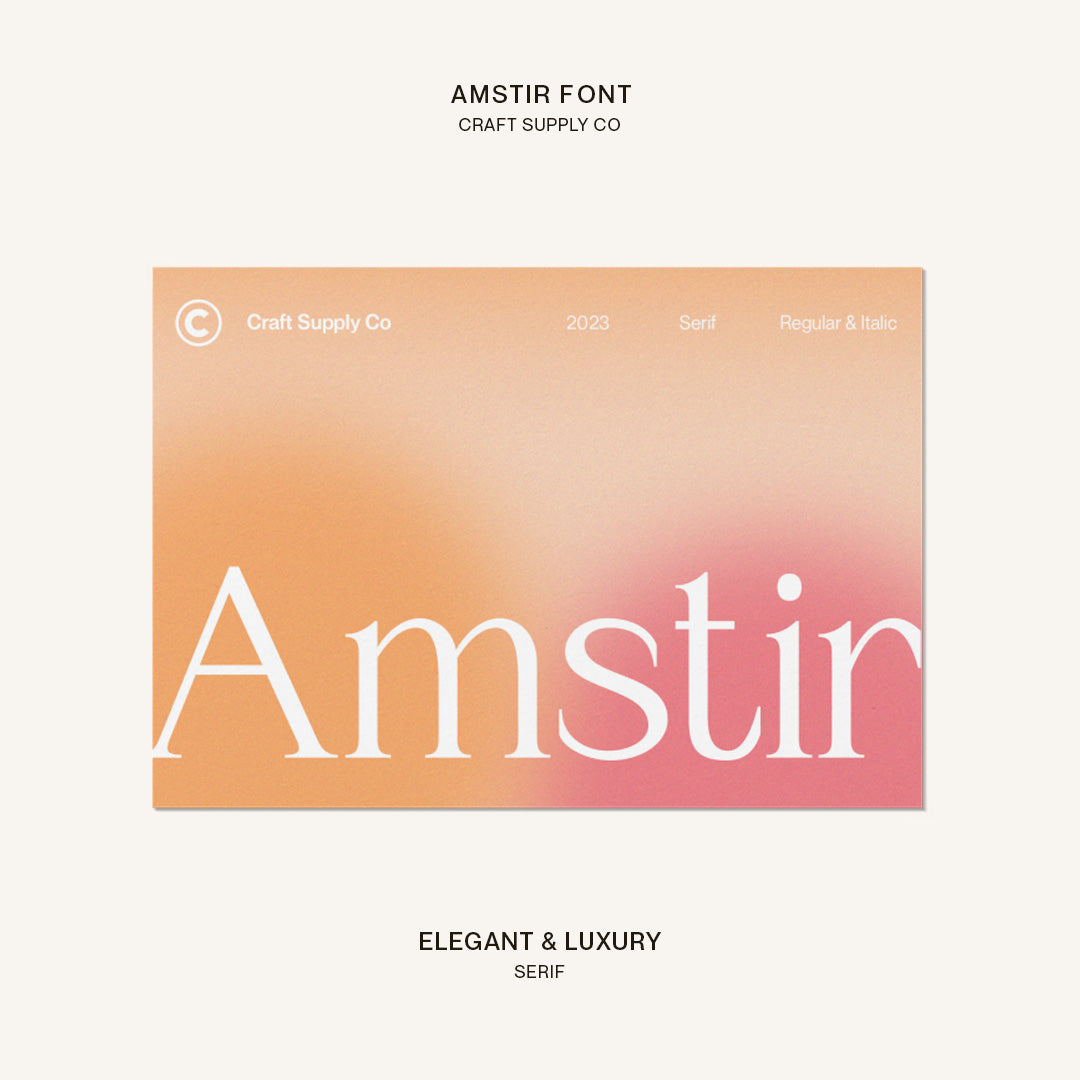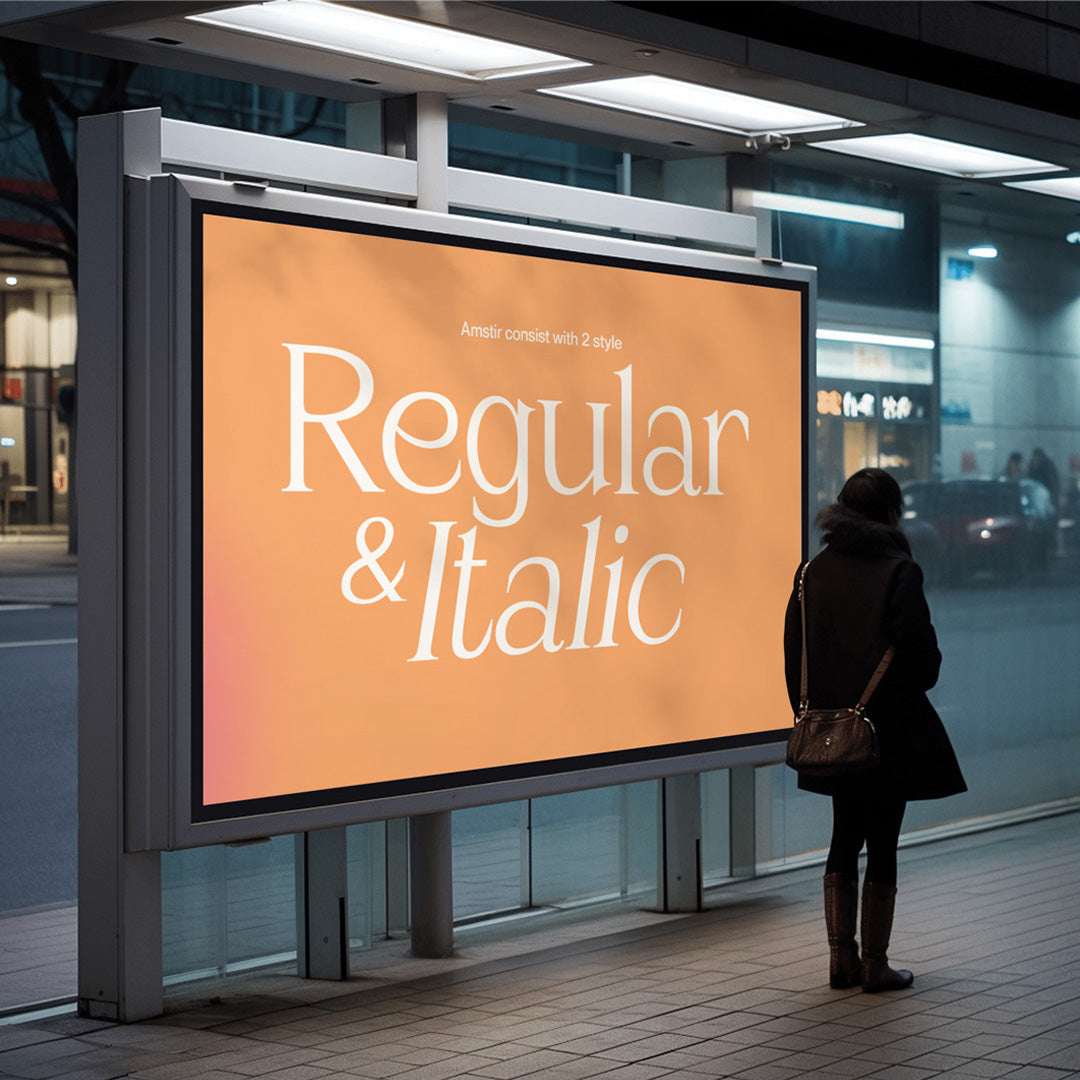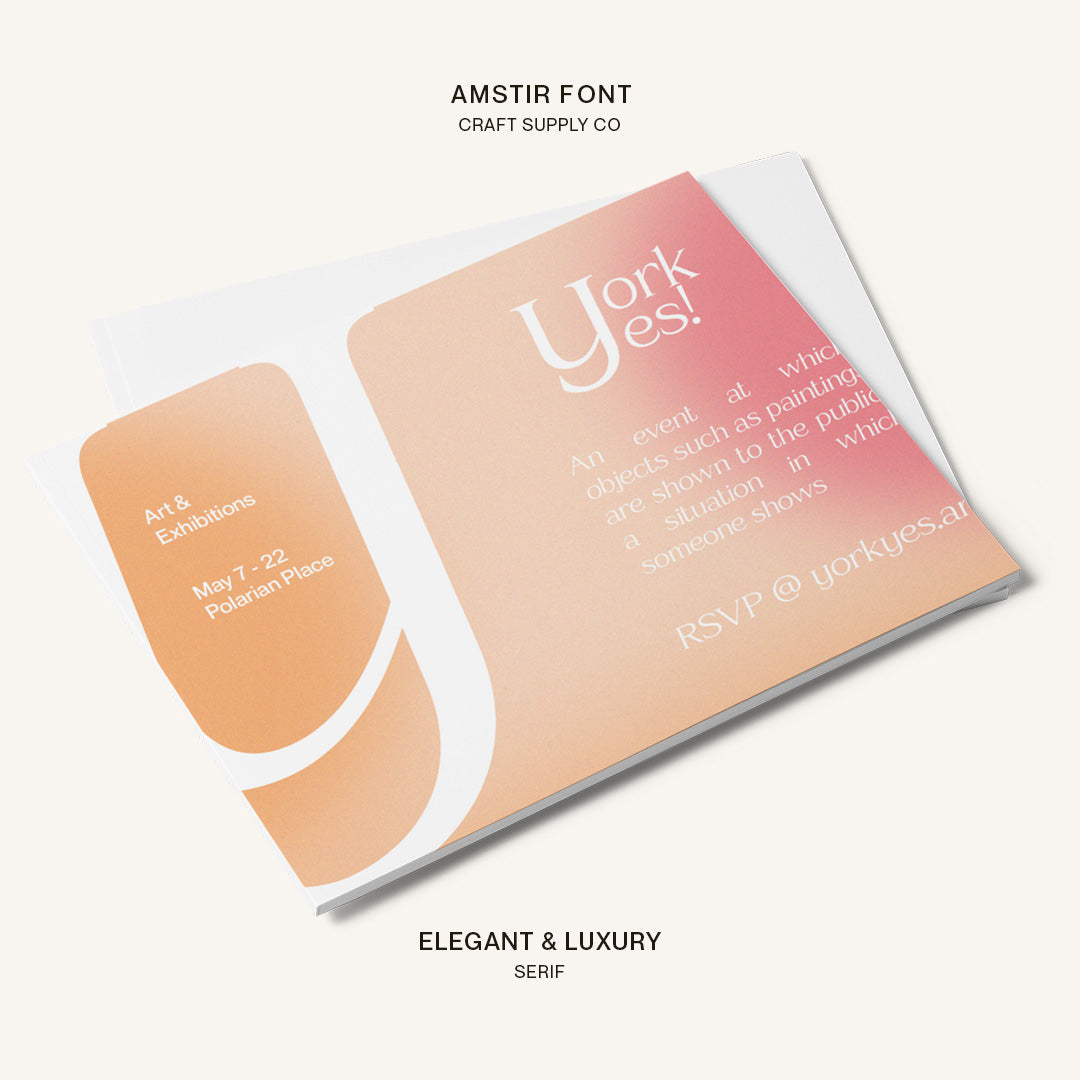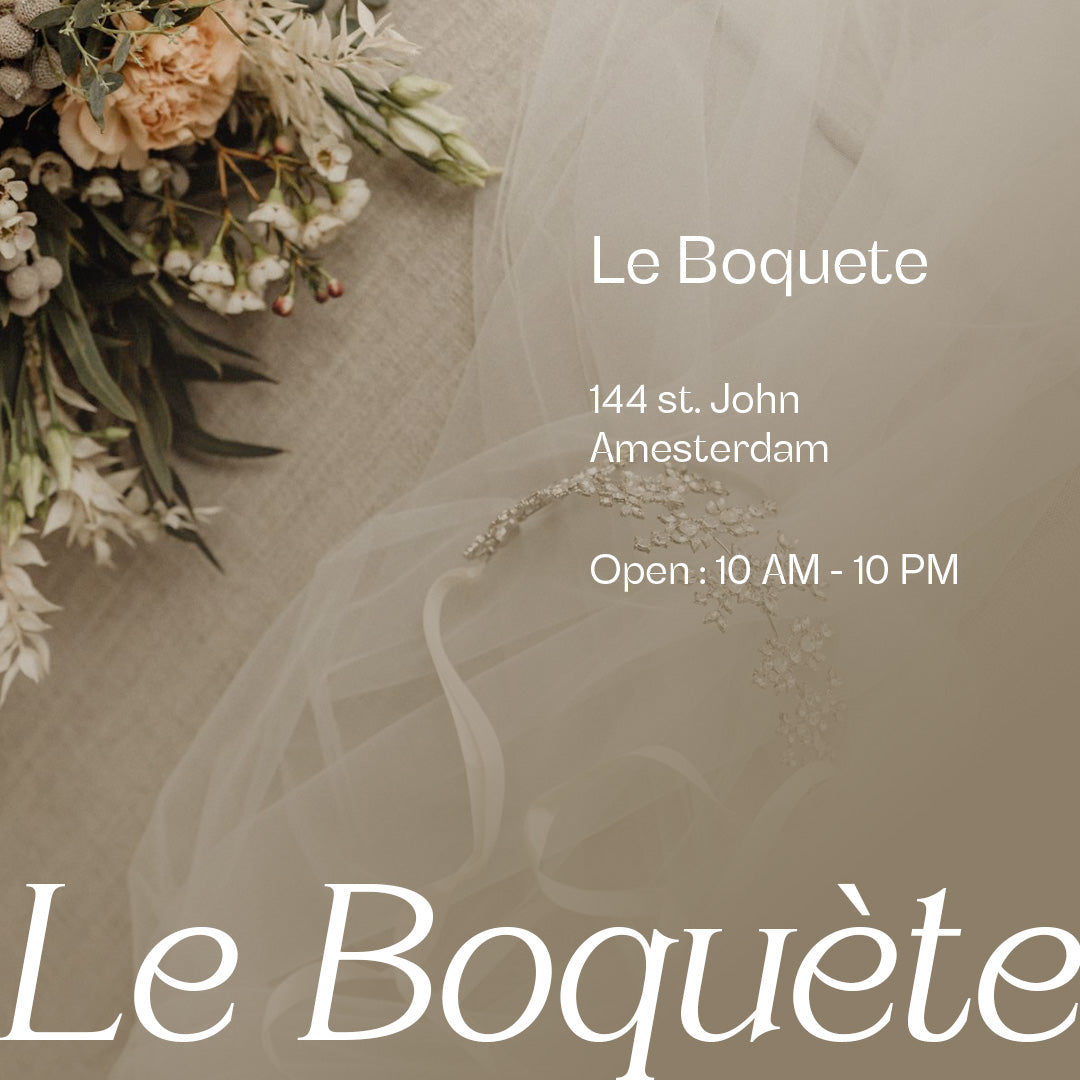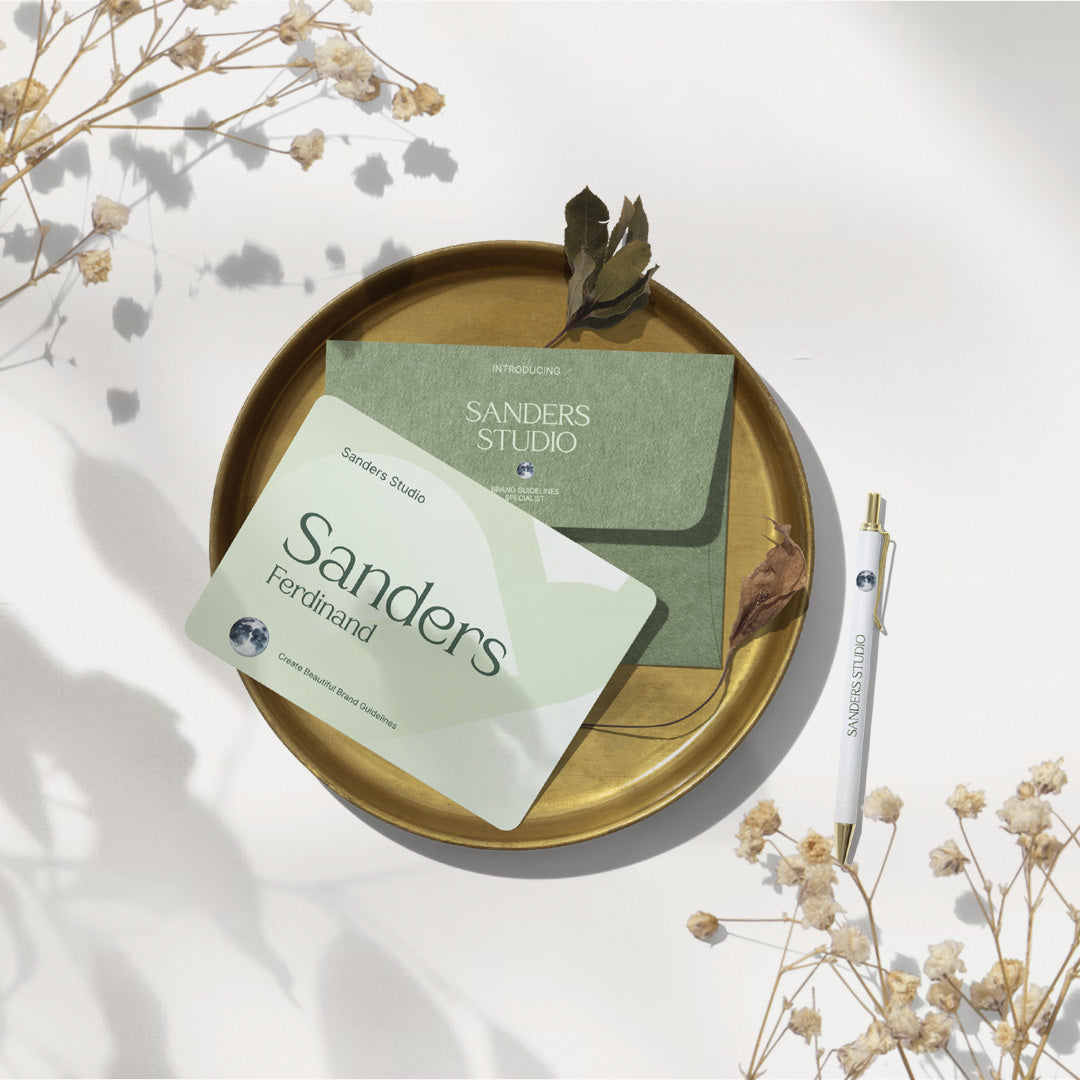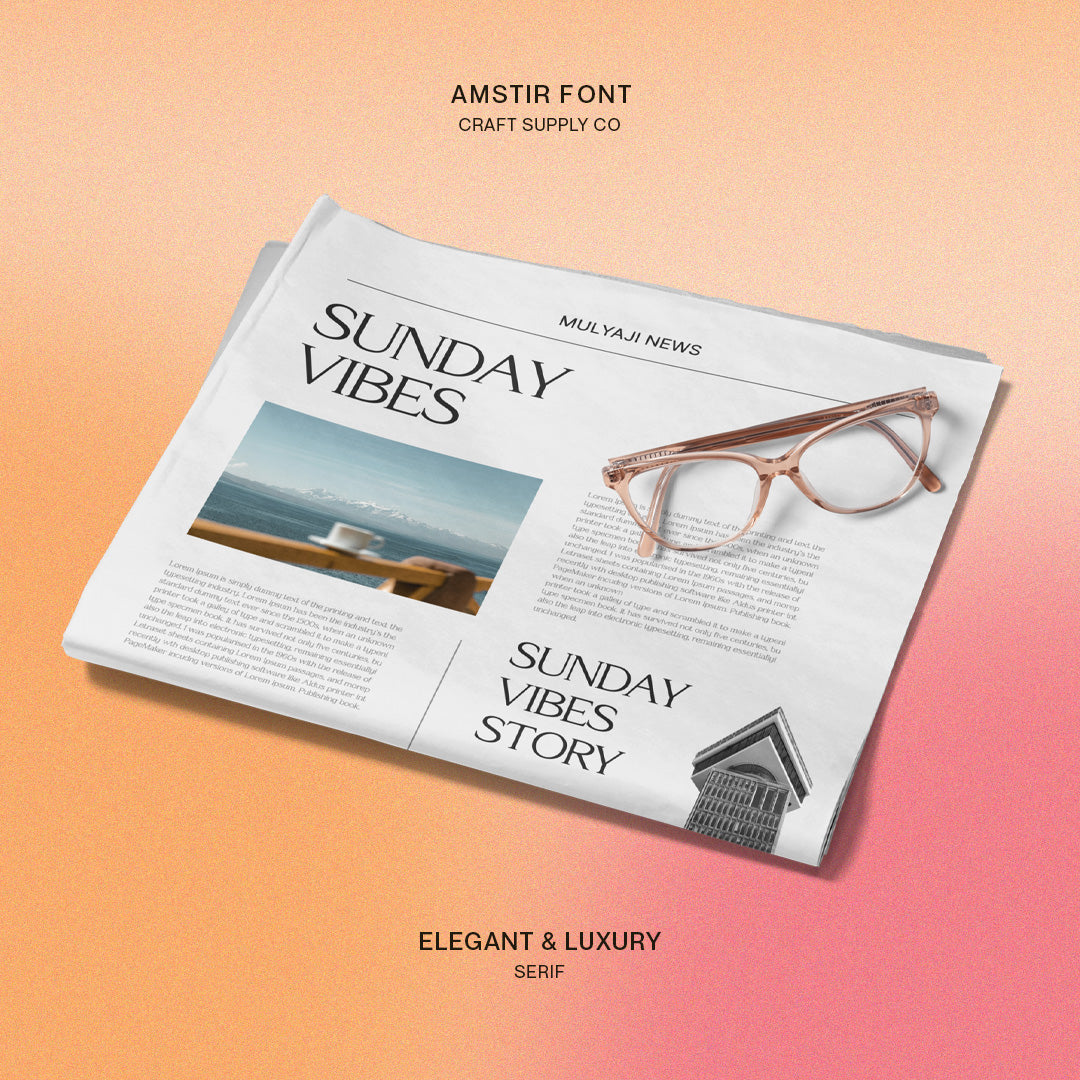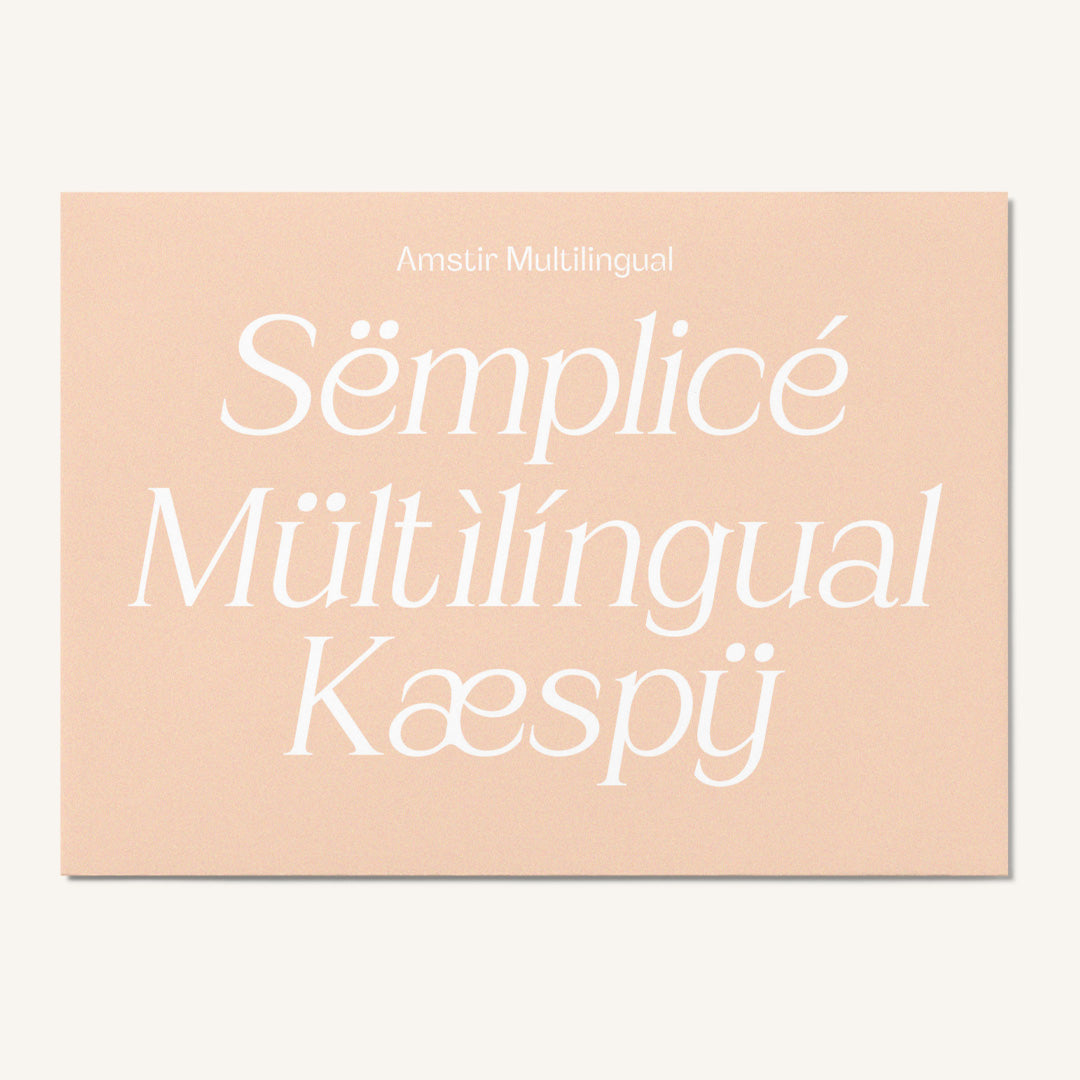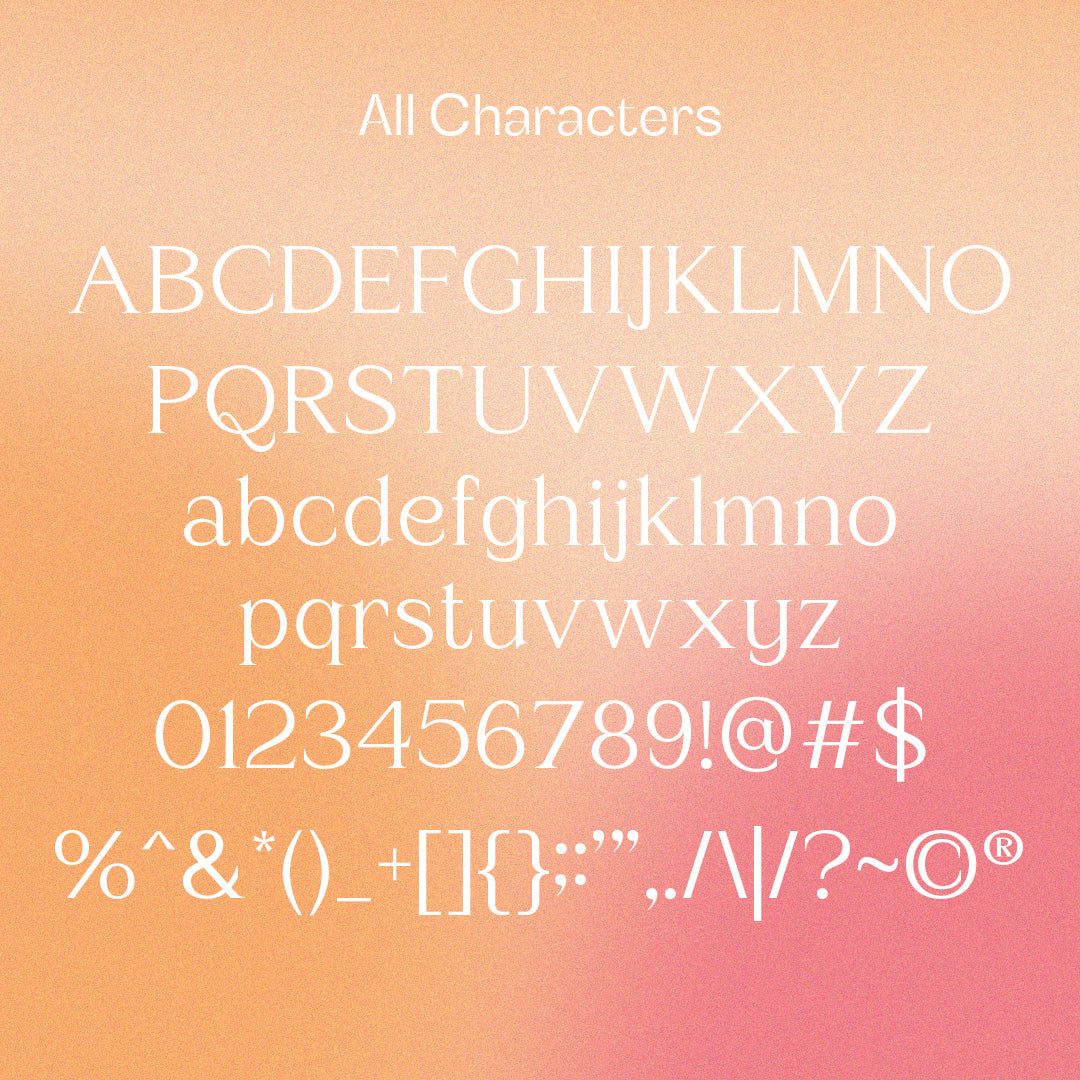
Amstir – Classic Serif Typeface
Amstir is a timeless classic among serif typefaces, perfectly tailored for editorial use. With its elegant lines and refined presence, Amstir brings an air of sophistication to your content. Elevate your editorial projects with the grace and tradition of Amstir’s distinguished design.
Amstir Regular
Amstir Italic
Accents (Multilingual characters)
Amstir is a classic serif typeface designed for editorial use, featuring elegant lines and a refined presence. It includes Amstir Regular and Amstir Italic, with uppercase and lowercase letters, numerals, punctuation, multilingual accents, and PUA encoding.